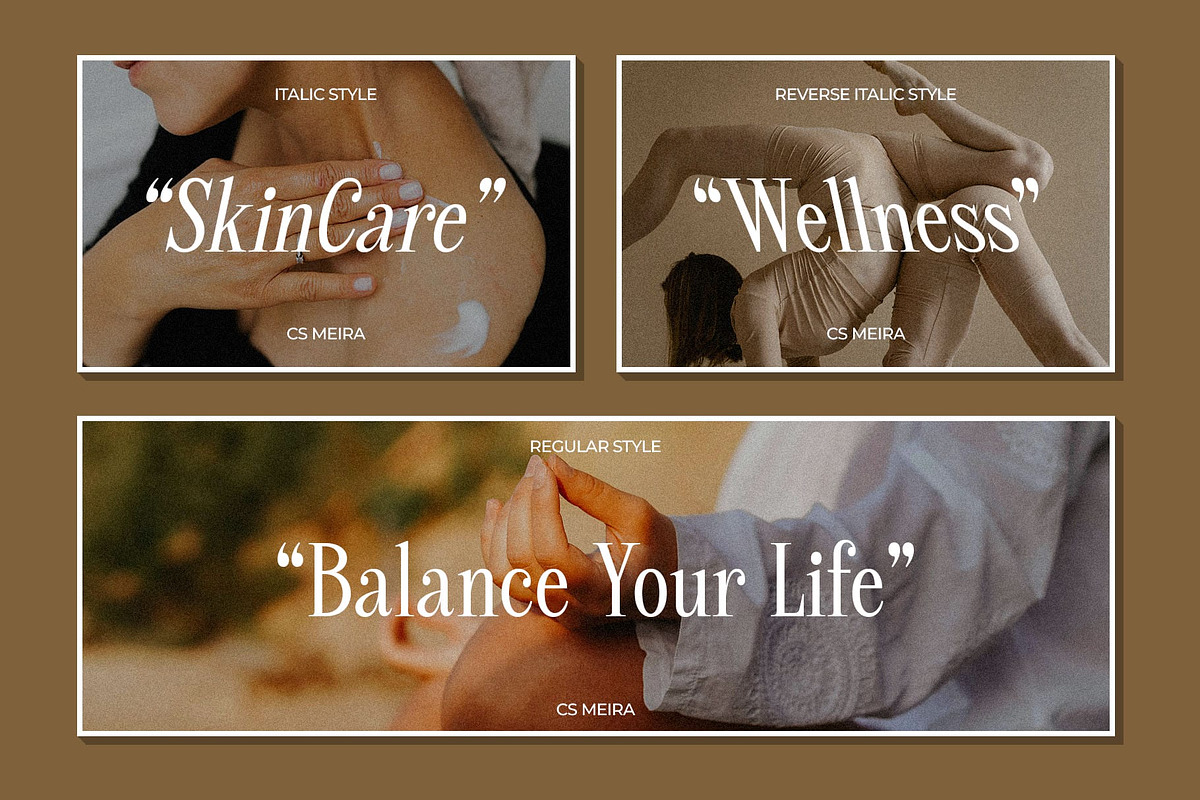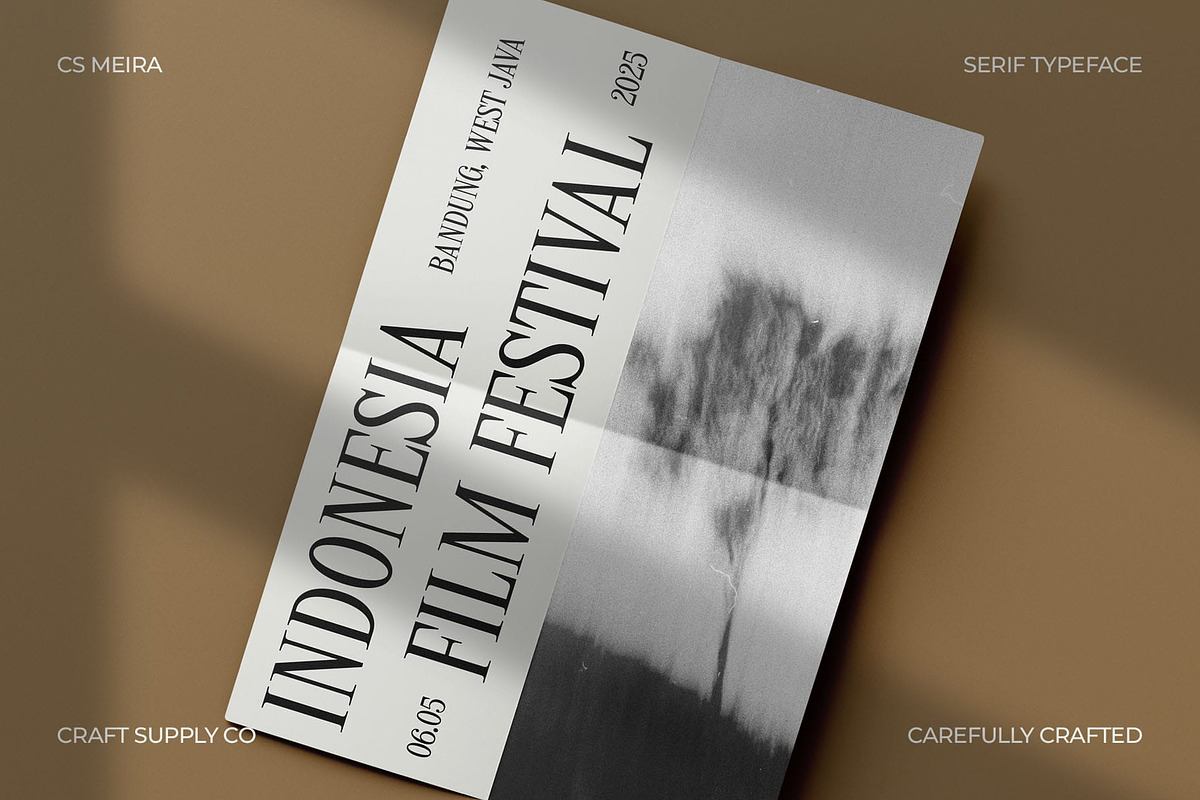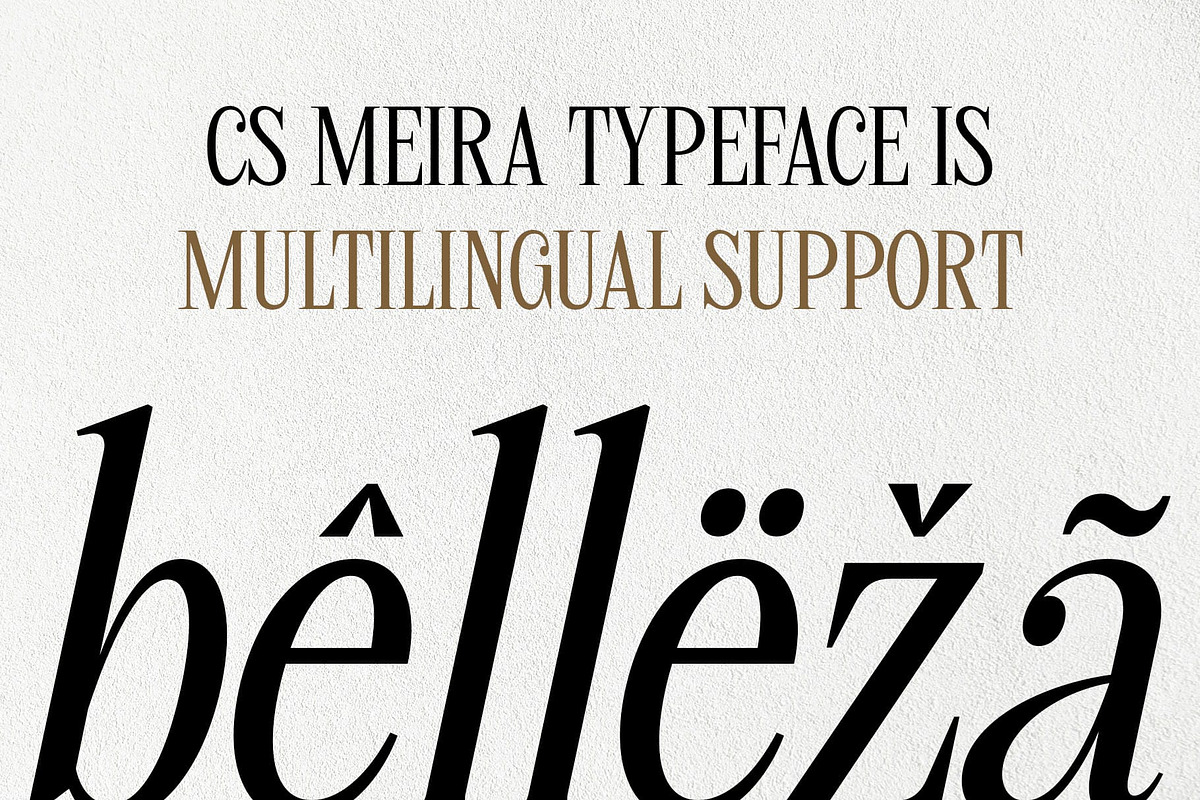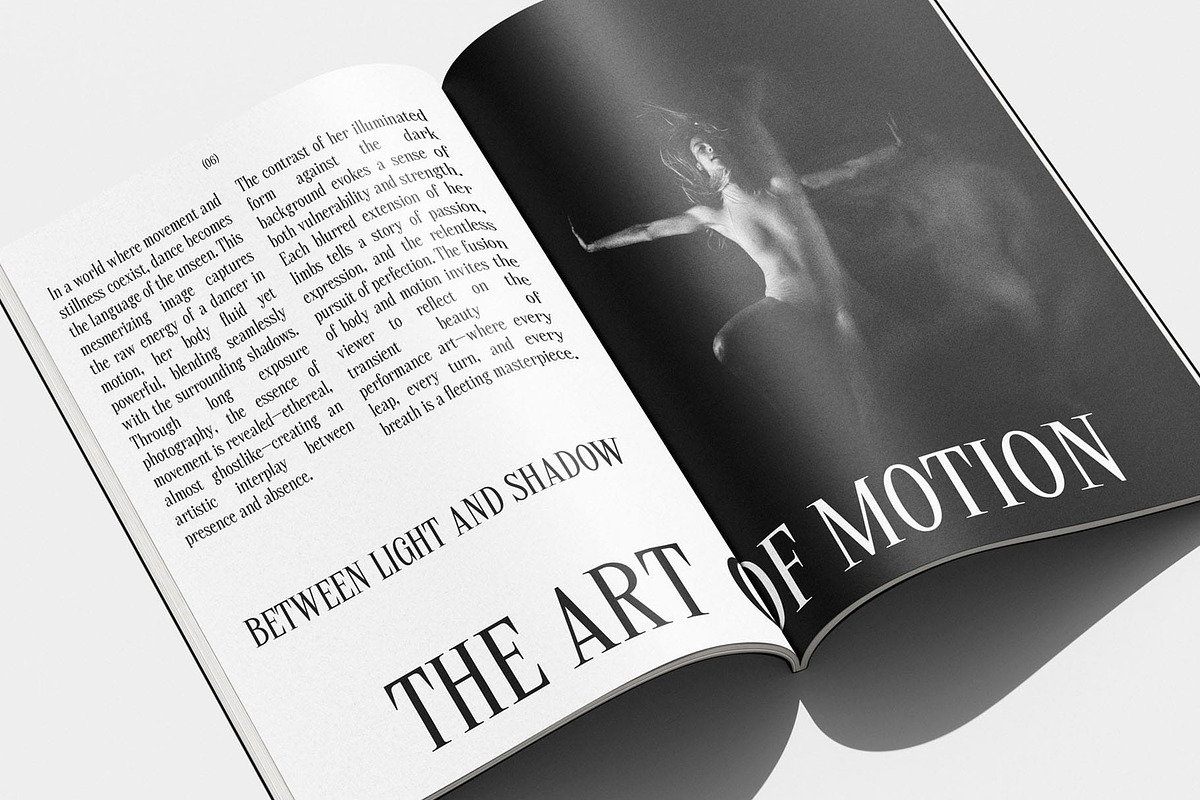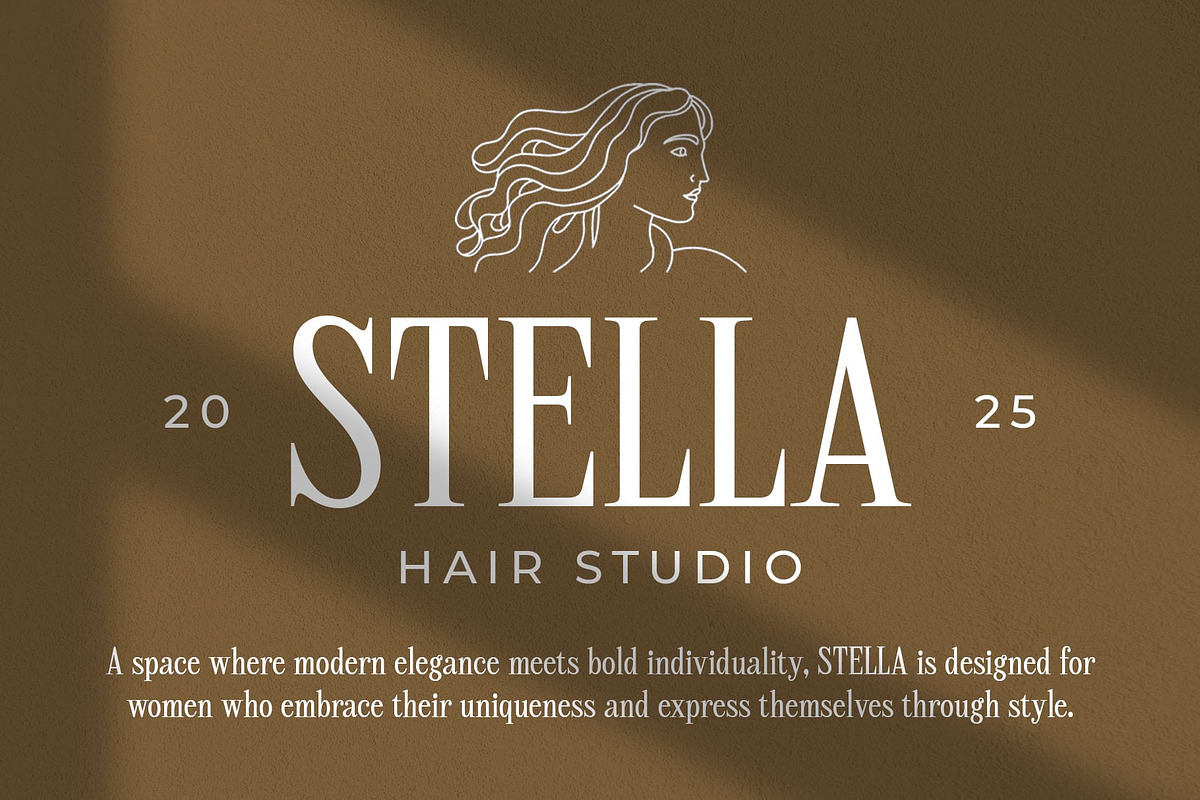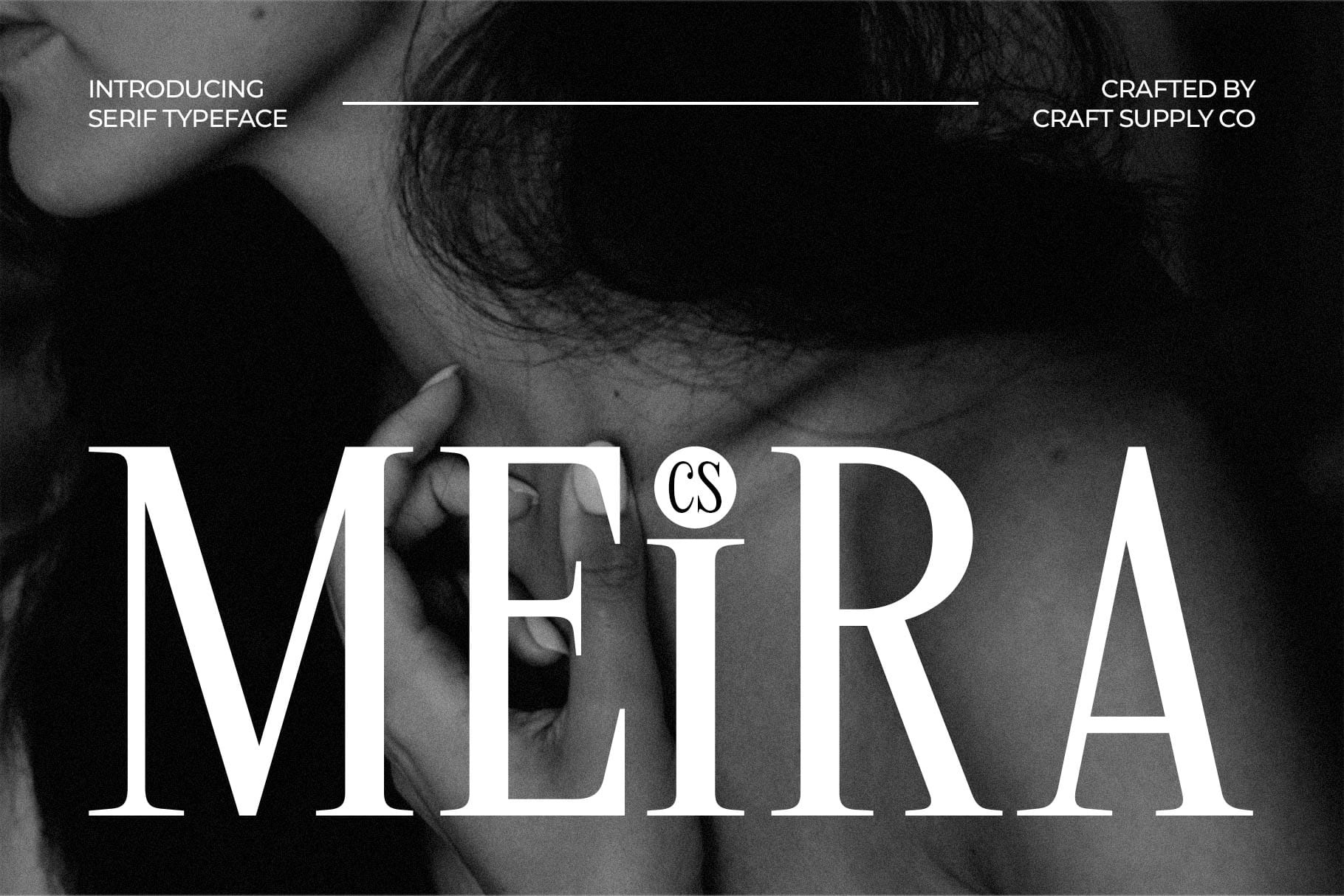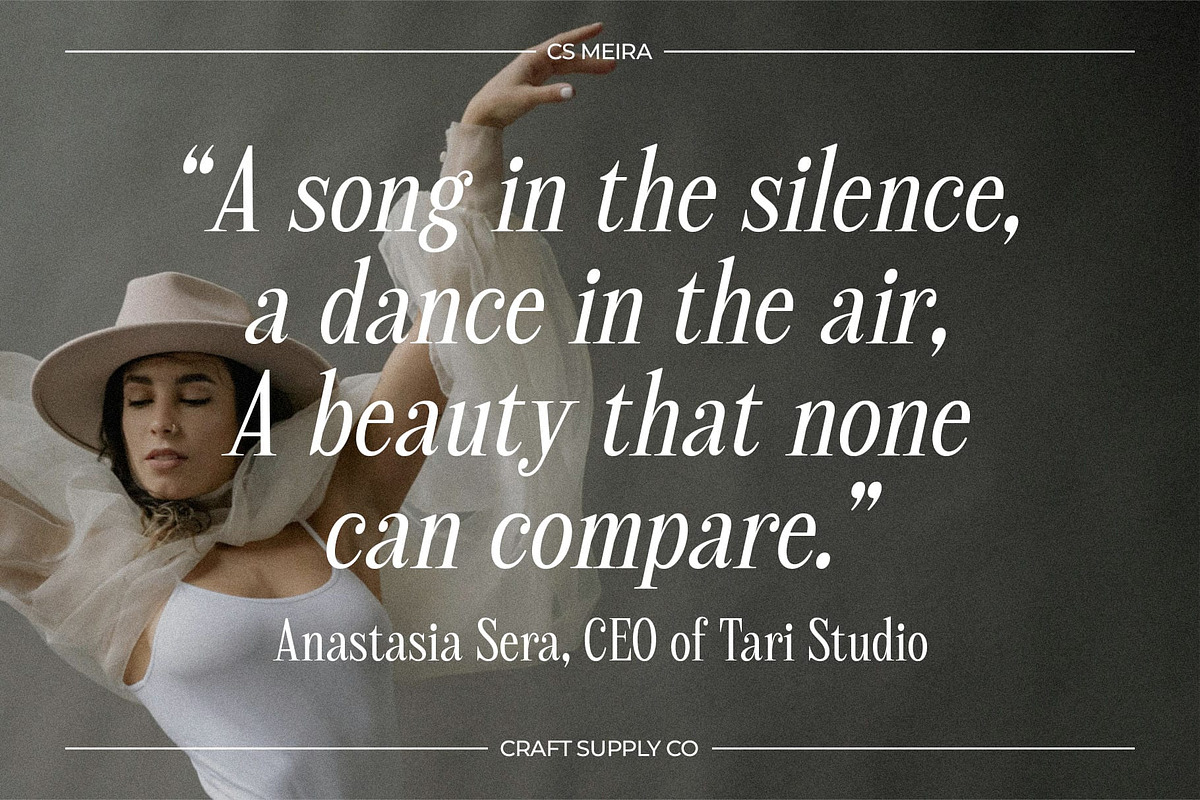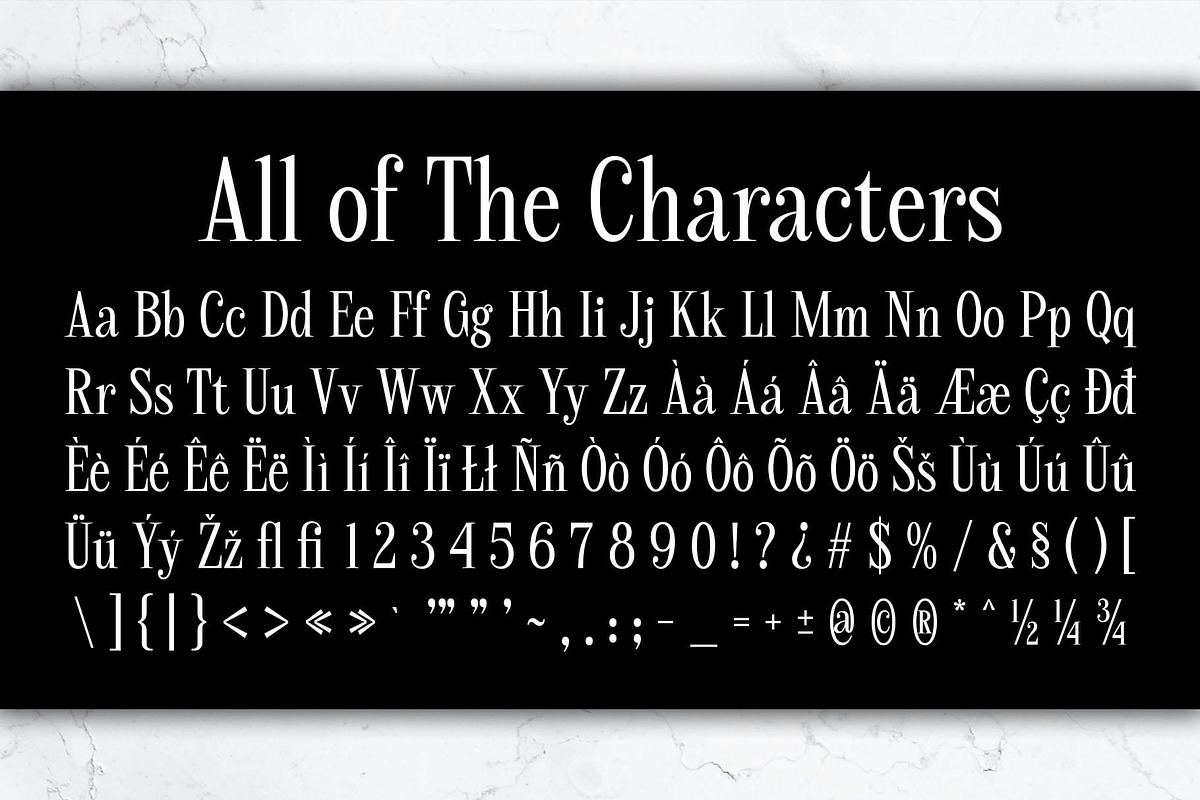
CS Meira – Elegant Font
CS Meira Font: A Harmony of Elegance and Modern Sophistication
Modern Classic Serif with a Minimalist Design CS Meira is a refined serif font that seamlessly blends modern minimalism with timeless sophistication. Its clean, well-balanced letterforms and long, graceful serifs create an effortlessly elegant appearance, perfect for high-end and stylish designs. With its delicate yet striking details, this typeface exudes exclusivity and refinement, making it an excellent choice for designers who seek a font that embodies both contemporary and classic aesthetics.
Elongated Thin Strokes for a Luxurious Feel Designed with elongated, delicate strokes, CS Meira exudes an air of luxury and exclusivity. The fine details enhance its refined aesthetic, making it an excellent choice for projects that require a sophisticated and upscale typographic presence.
Perfect for Branding, Editorials, and High-End Designs CS Meira thrives in high-end branding, fashion editorials, and premium product packaging. Whether used in luxury logos, magazine headlines, advertising campaigns, or elegant invitations, it adds a sense of refinement and professionalism to any design.
Timeless Elegance for a Lasting Impression With its graceful structure and contemporary edge, CS Meira is a versatile typeface that suits both modern and classic visual identities. Its sleek yet expressive form ensures a captivating presence, making it an essential choice for creating stylish, high-impact typography.